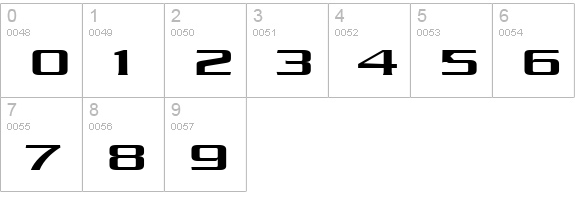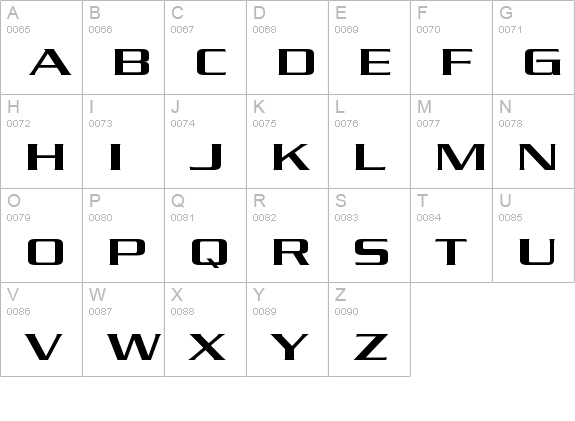
Chaney Extended Normal Font Details
Chaney Extended Normal is the standard, neutral, extended-width variant in the Chaney typeface family \xE2\x80\x94 well suited to general body text, paragraphs, and standard typographic work.
Chaney Extended Normal font is a stylish and versatile typeface that exudes elegance and sophistication. With its clean lines and modern aesthetic, this font is perfect for a wide range of design projects, from branding and advertising to editorial and web design. The extended character set allows for creative expression and flexibility in text layout. This font is available for free download at FontsMarket.com, making it easily accessible for designers and creatives looking to elevate their projects with a touch of sophistication. Whether you're creating a sleek logo, designing a sleek magazine layout, or crafting a professional website, Chaney Extended Normal font is sure to make a statement and leave a lasting impression.